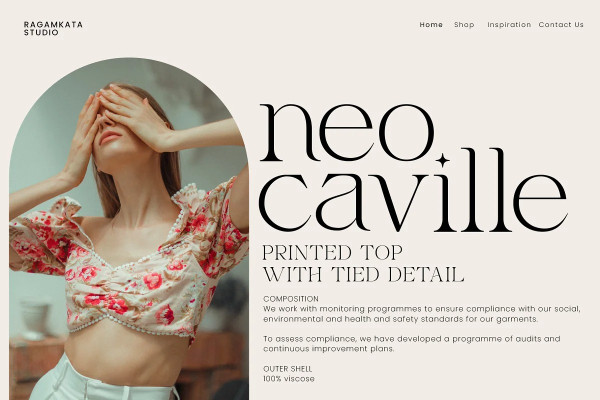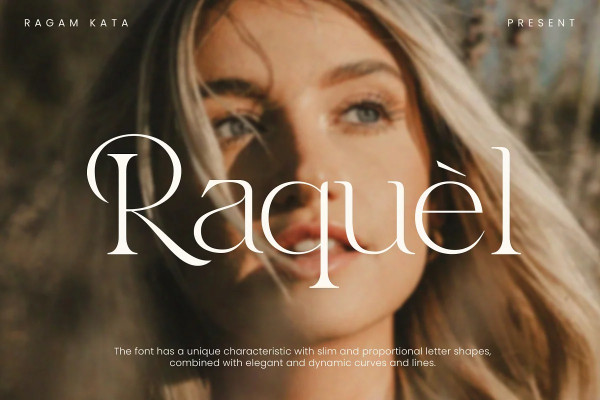
Raquel Font
Raquel Font is a modern serif font that exudes elegance and sophistication, with thin strokes that create a delicate appearance. The font also features unique swashes on some of the uppercase letters, adding an artistic touch to your designs.
With support for various languages and punctuation marks, Raquel offers flexibility for use in a variety of design projects, from logos to book layouts.
Crafted with care and attention to detail, Raquel delivers exceptional quality to enhance the appearance of your designs. Create stunning and refined designs with the Raquel font!